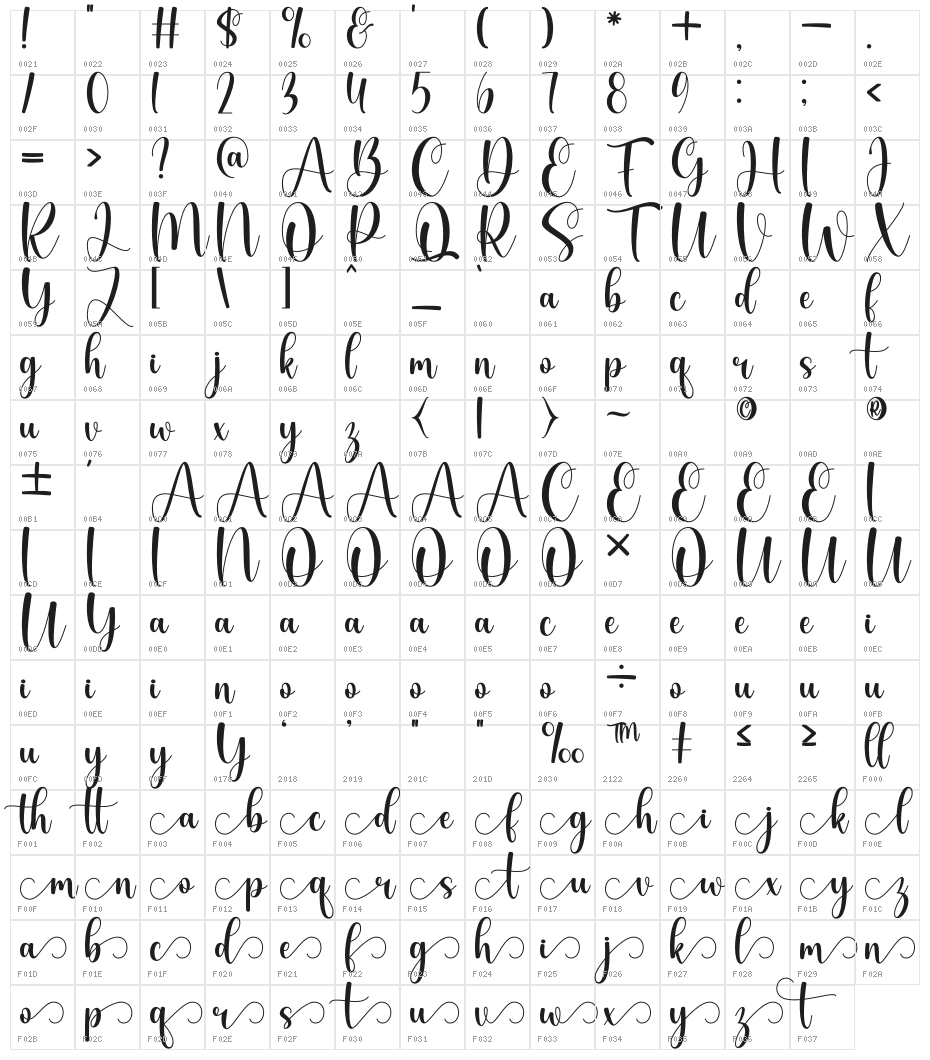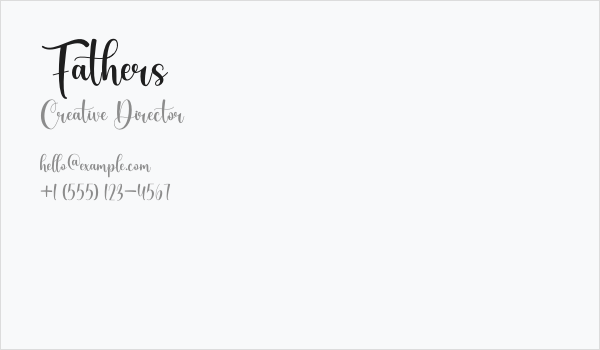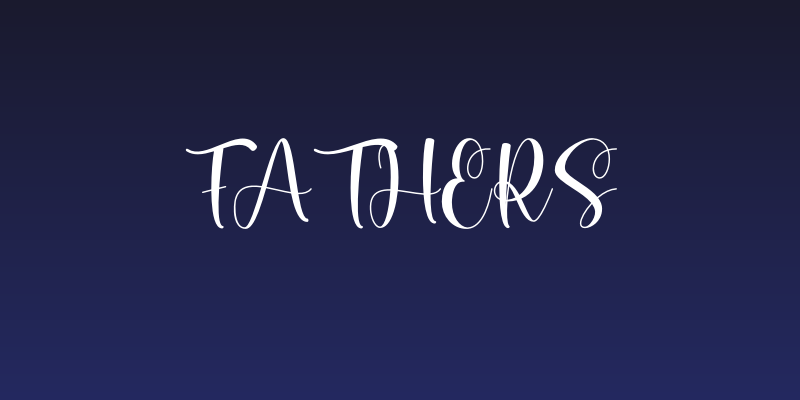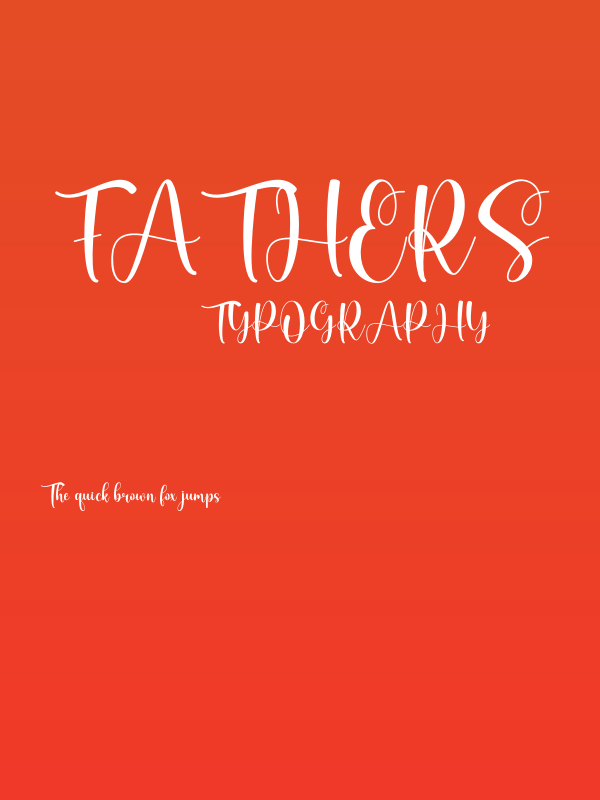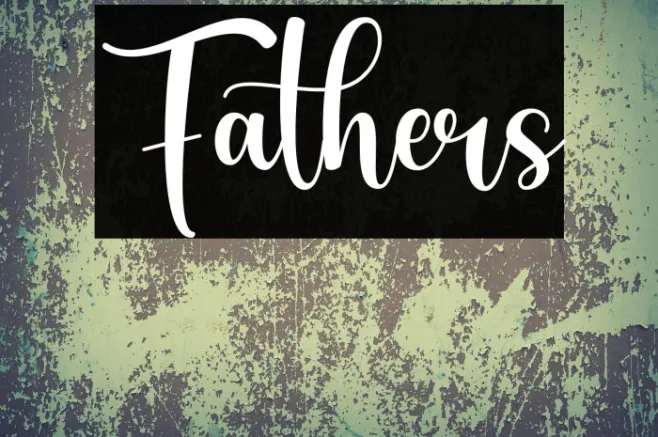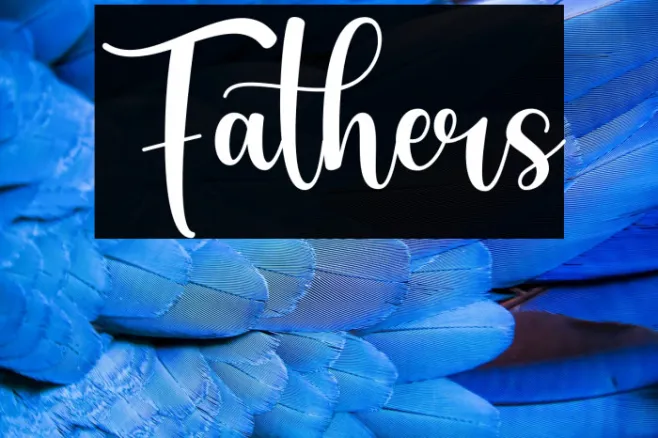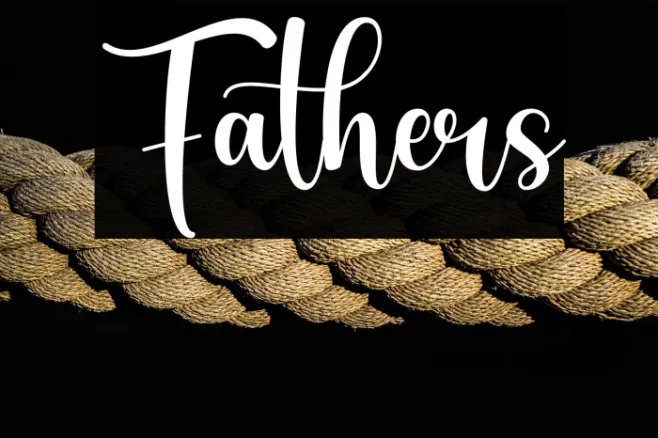
Fathers Font
Fathers Description
A decorative script font with elegant, flowing lines and high contrast between thick and thin strokes.
| Use Case | Logos, Invitations, Headlines |
| Proposed Projects | Wedding invitations, greeting cards, elegant branding. |